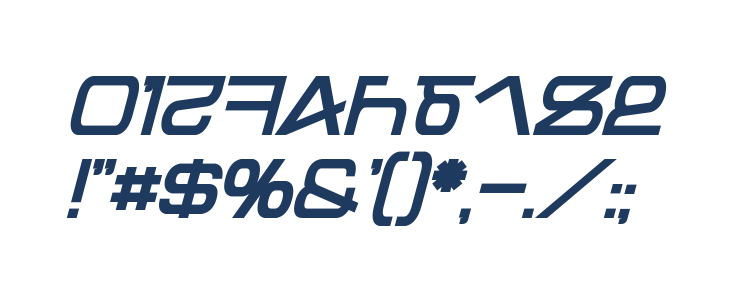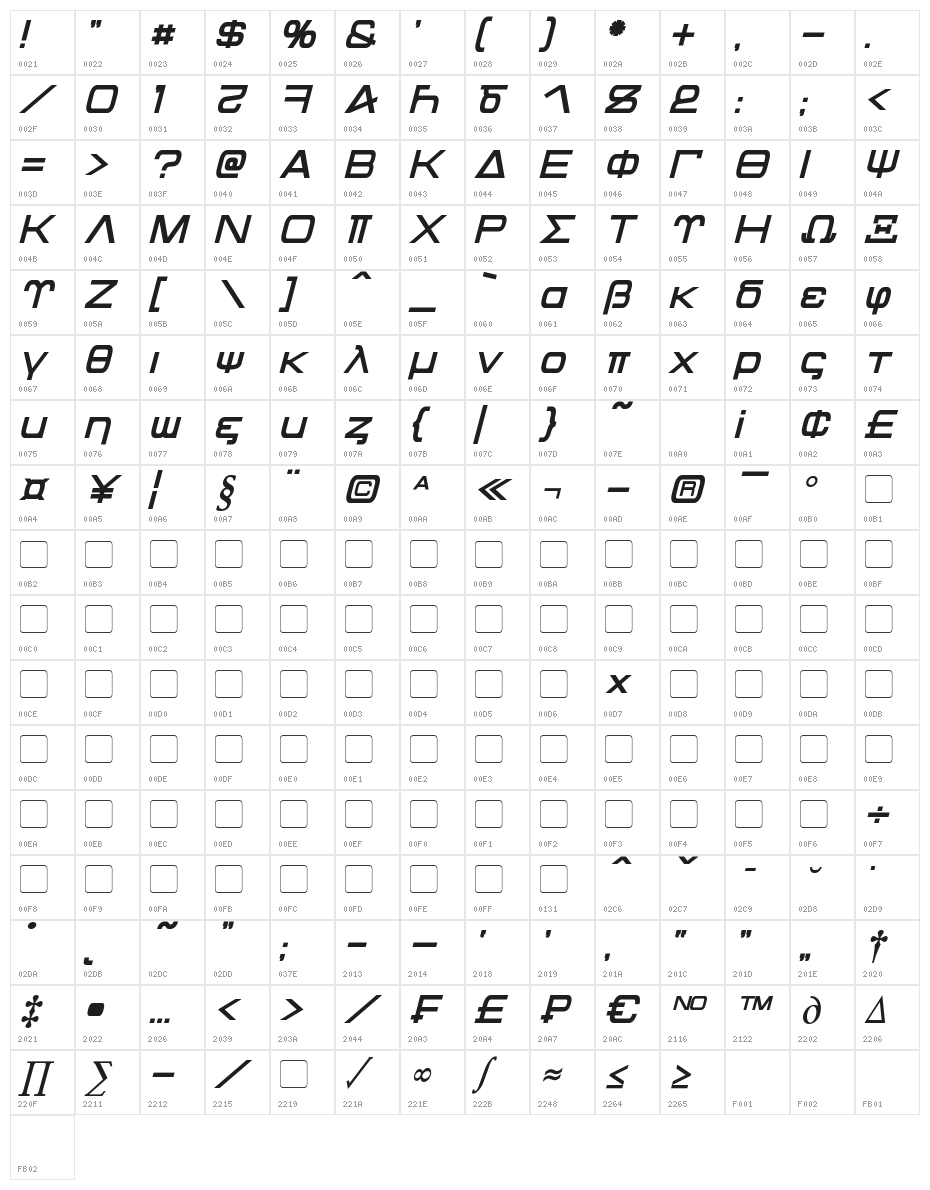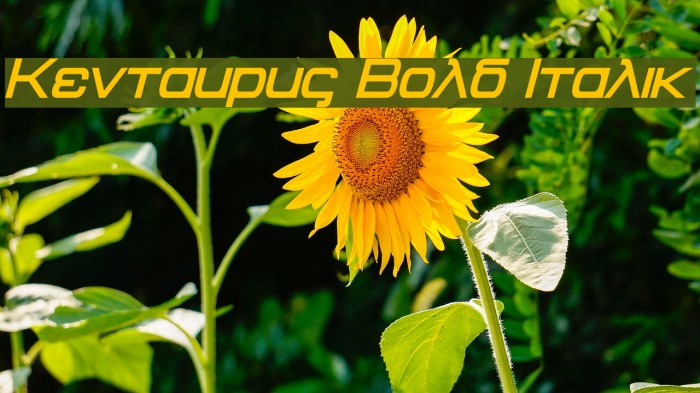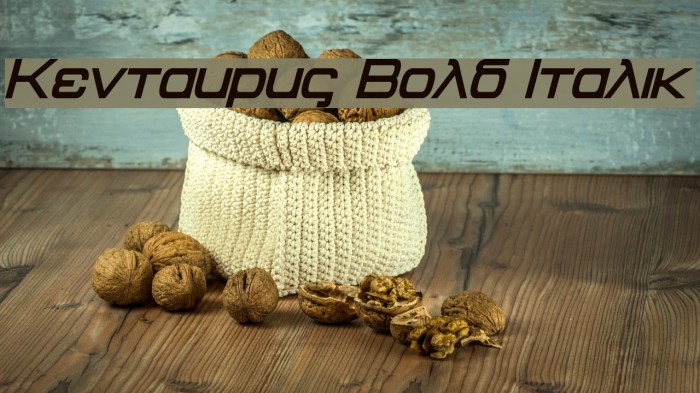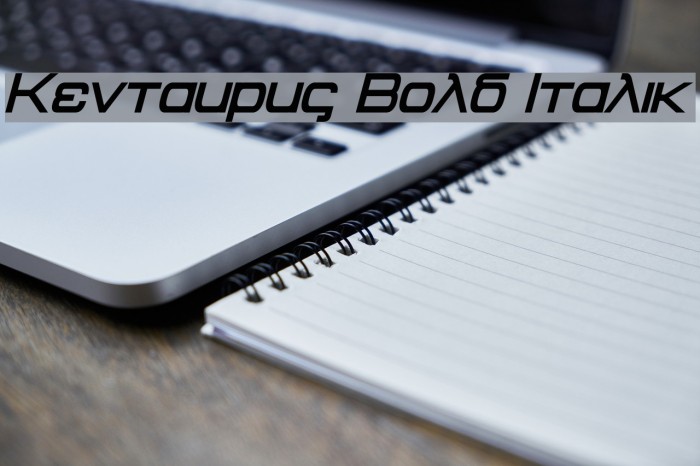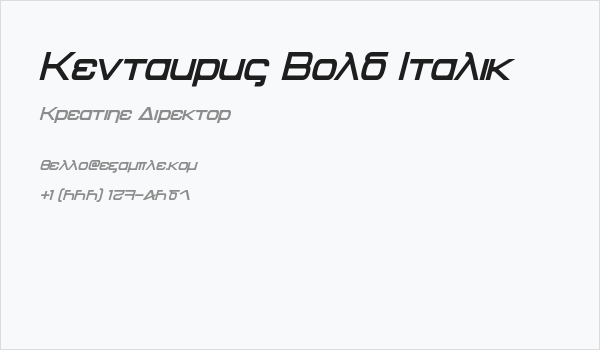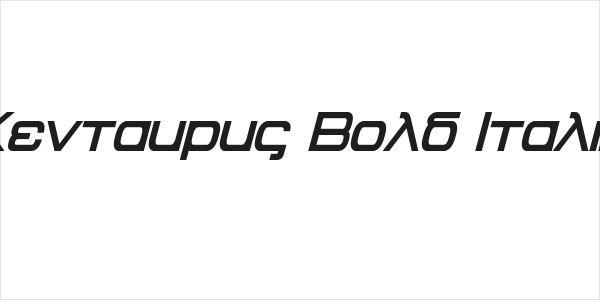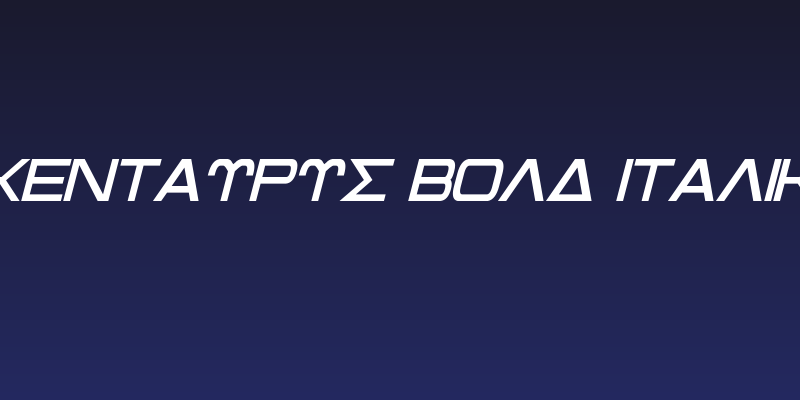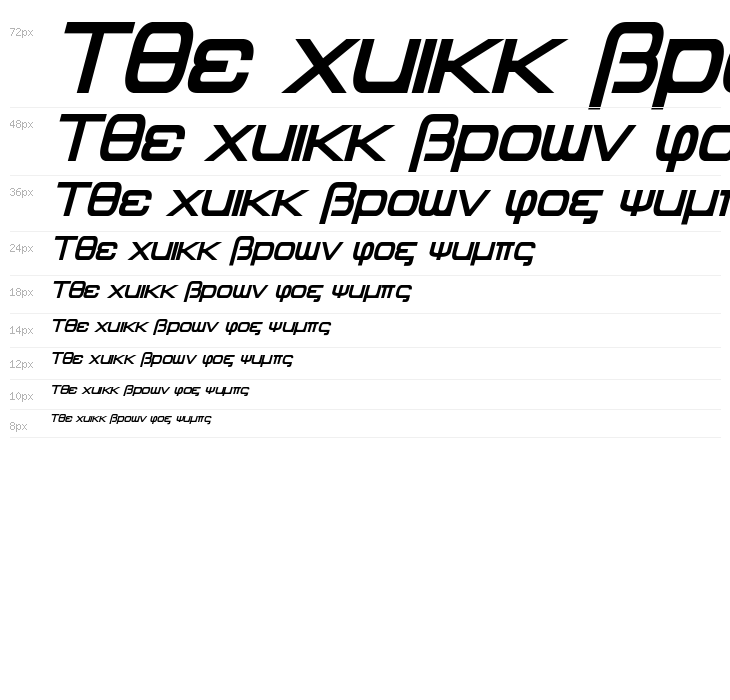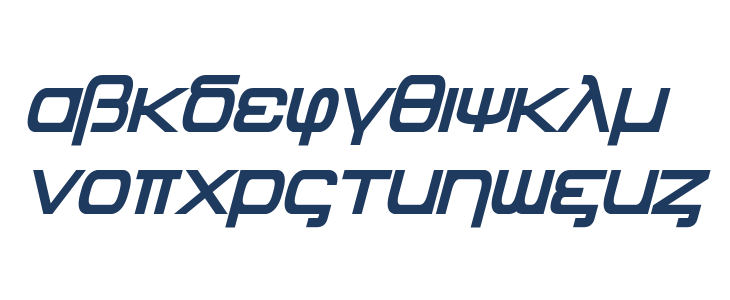
Kentaurus Bold Italic Font
Kentaurus Bold Italic Description
This font features a bold and italicized style with a modern and dynamic appearance. The characters are slightly slanted, giving a sense of motion and energy. The strokes are consistent in thickness, providing a uniform look across all characters. The uppercase and lowercase letters maintain a cohesive design, with sharp angles and clean lines. The numerals and special characters are designed to match the overall aesthetic, ensuring a seamless integration in any text. This font is well-suited for projects that require a contemporary and assertive look.
| Proposed Projects | Ideal for branding, advertising, sports-related designs, and modern editorial layouts. |